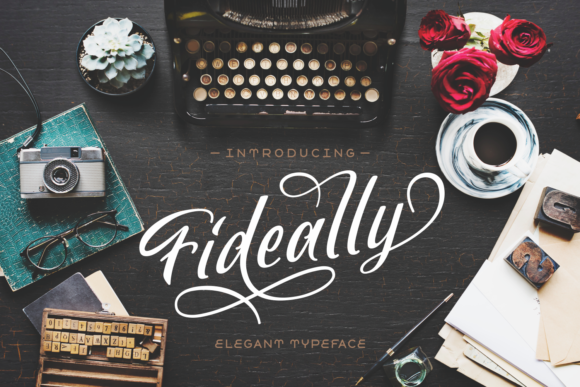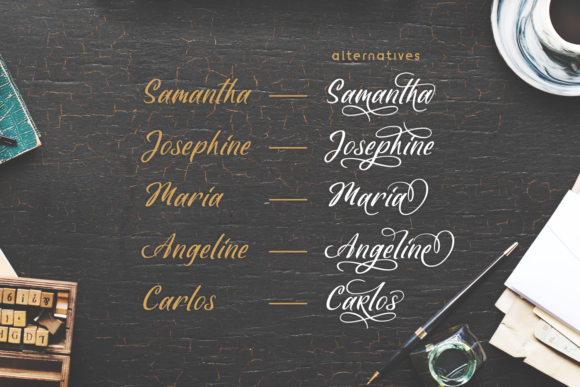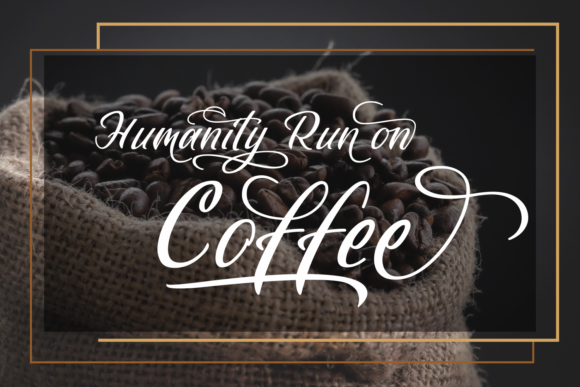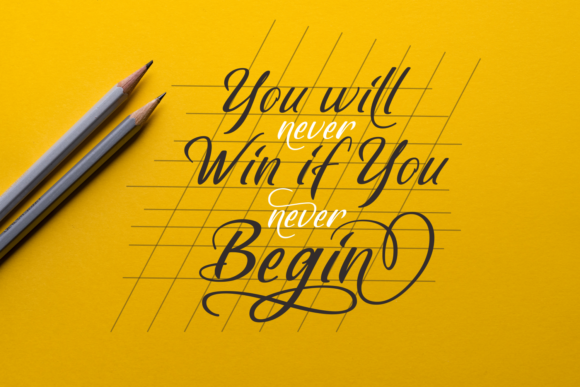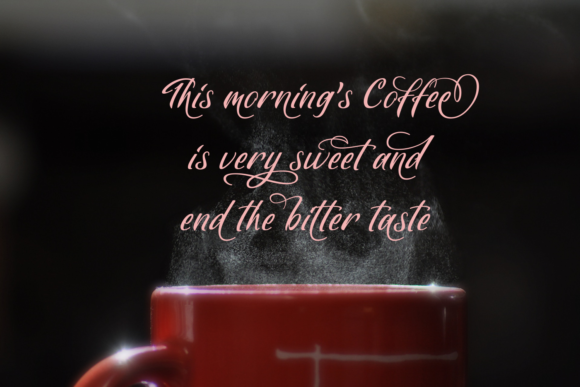
HomeScript FontsFideally Font Script Fonts Fideally Font FacebookXPinterestWhatsApp Fideally Font Poster 2 Fideally Font Poster 3 Fideally Font Poster 4 Fideally Font Poster 5 Fideally Font Poster 6 About Fideally Font The Fideally is a striking typeface. It’s perfect for creating unique designs with an elegant look. DOWNLOAD NOW People also explored Hamedia Script Font Dinosaur Font Font Hilwen Font Qiblah Font Amel Font Para Hyang Font Cristalake Font About Aidah Font Heliotrope Font 279 0 TagsFideally Font Previous articleLorde Soon FontNext articleChapline Font LEAVE A REPLY Cancel reply Comment: Please enter your comment! Name:* Please enter your name here Email:* You have entered an incorrect email address! Please enter your email address here Website: Save my name, email, and website in this browser for the next time I comment. Personal Use Free Heart Memory Personal Use Free Read more about this font Good Mood Personal Use Free Read more about this font Authurium Personal Use Free Read more about this font Numberpile Personal Use Free Read more about this font BLOG How to Cut Any Font on Cricut: Convert a Font to SVG (Free) Turn any font into a clean SVG so it cuts crisp on Cricut - a quick 3-step workflow using a free font-to-SVG tool. Free Fonts Risk: Why Free Fonts Can Be Dangerous for Designers Best Fonts for T-Shirt Design – Top 2025 Picks Using Fonts in Digital Marketing: Tips to Strengthen Your Brand Identity